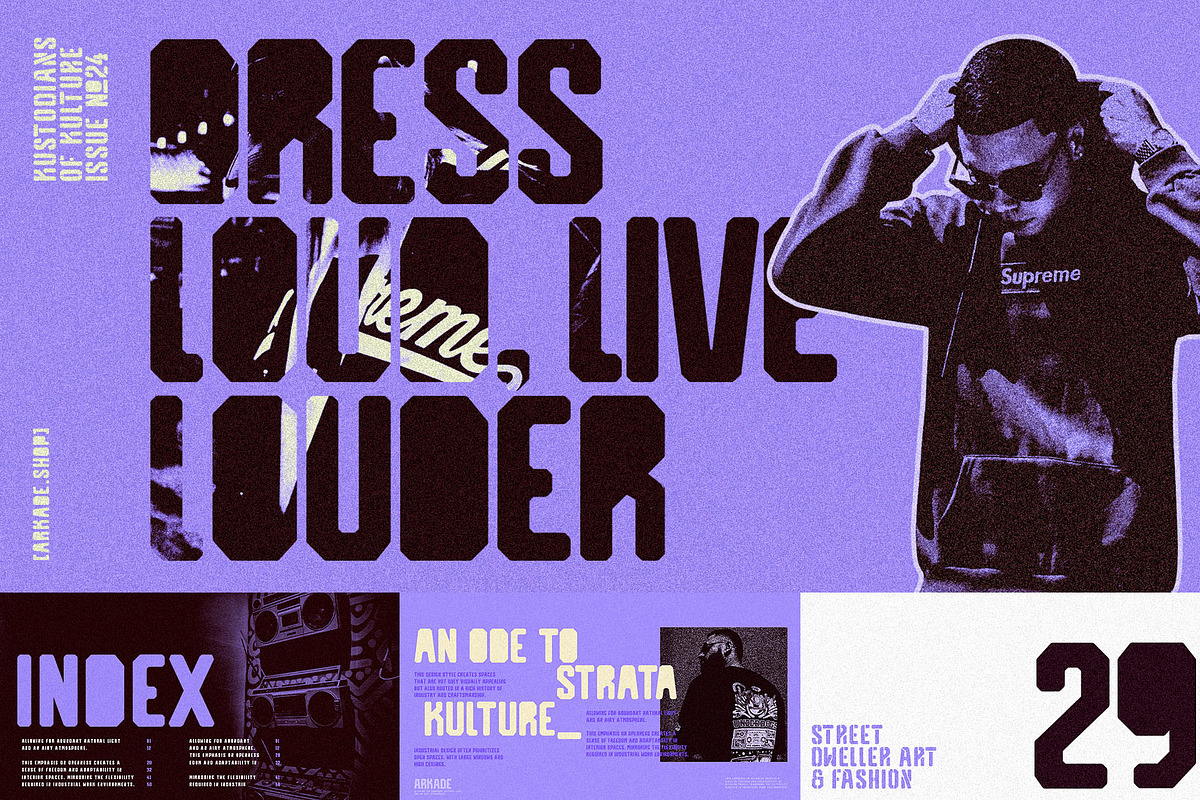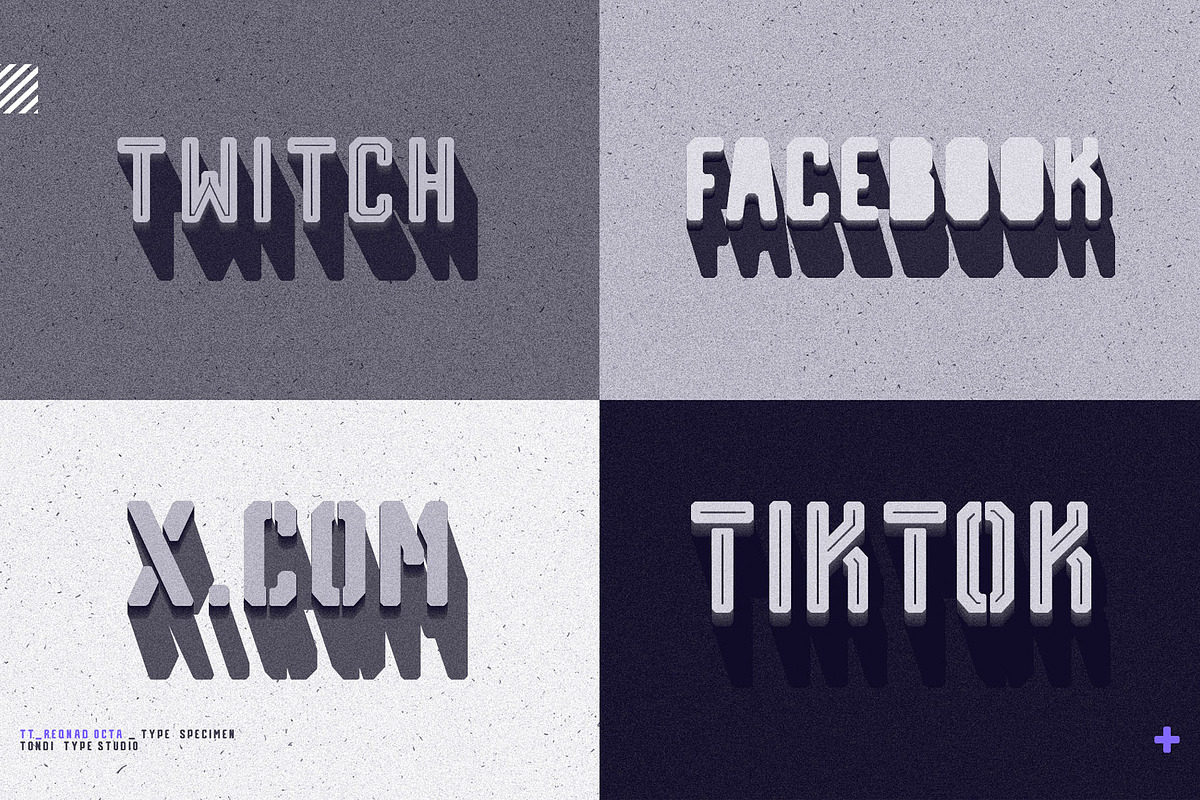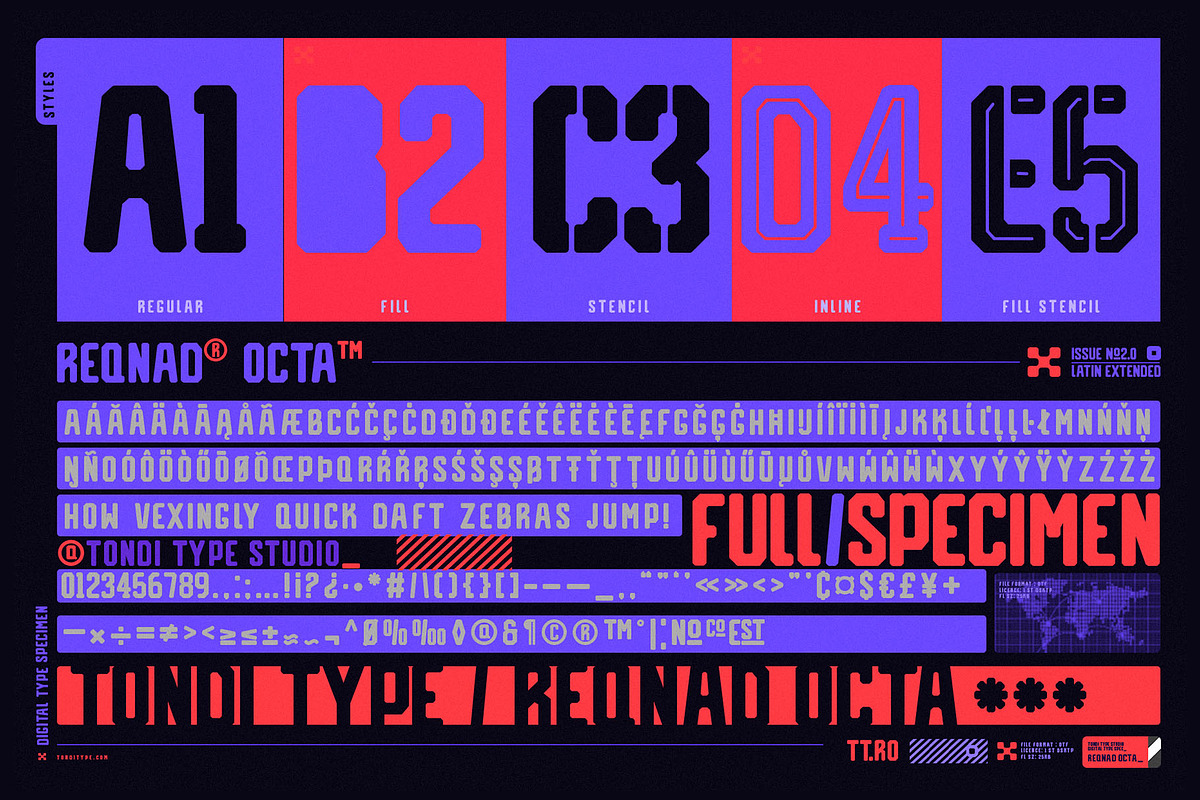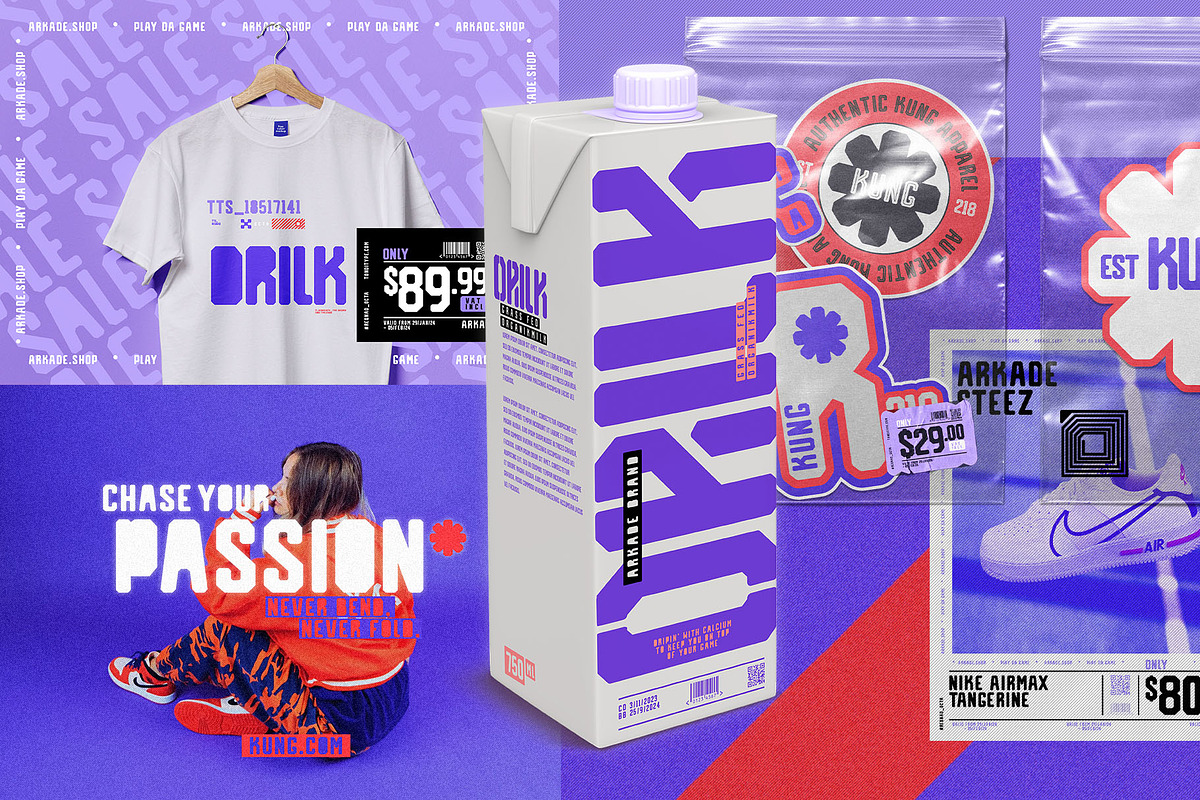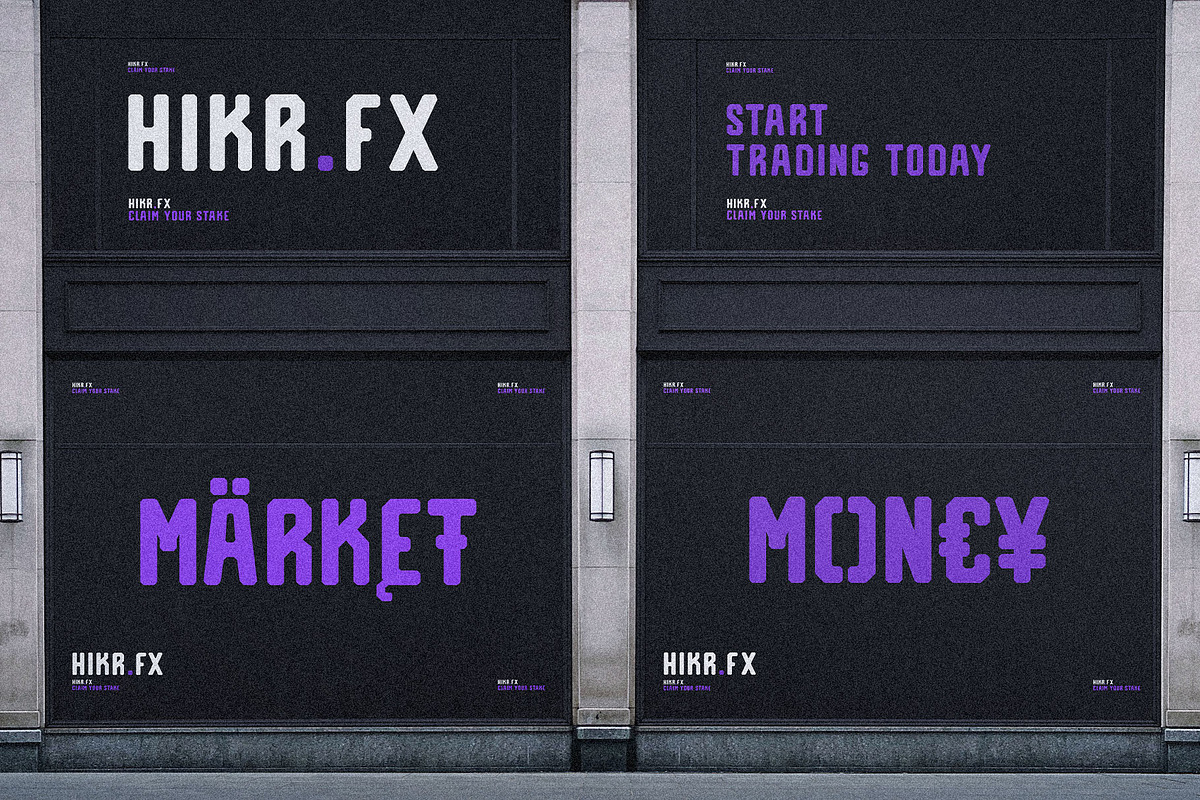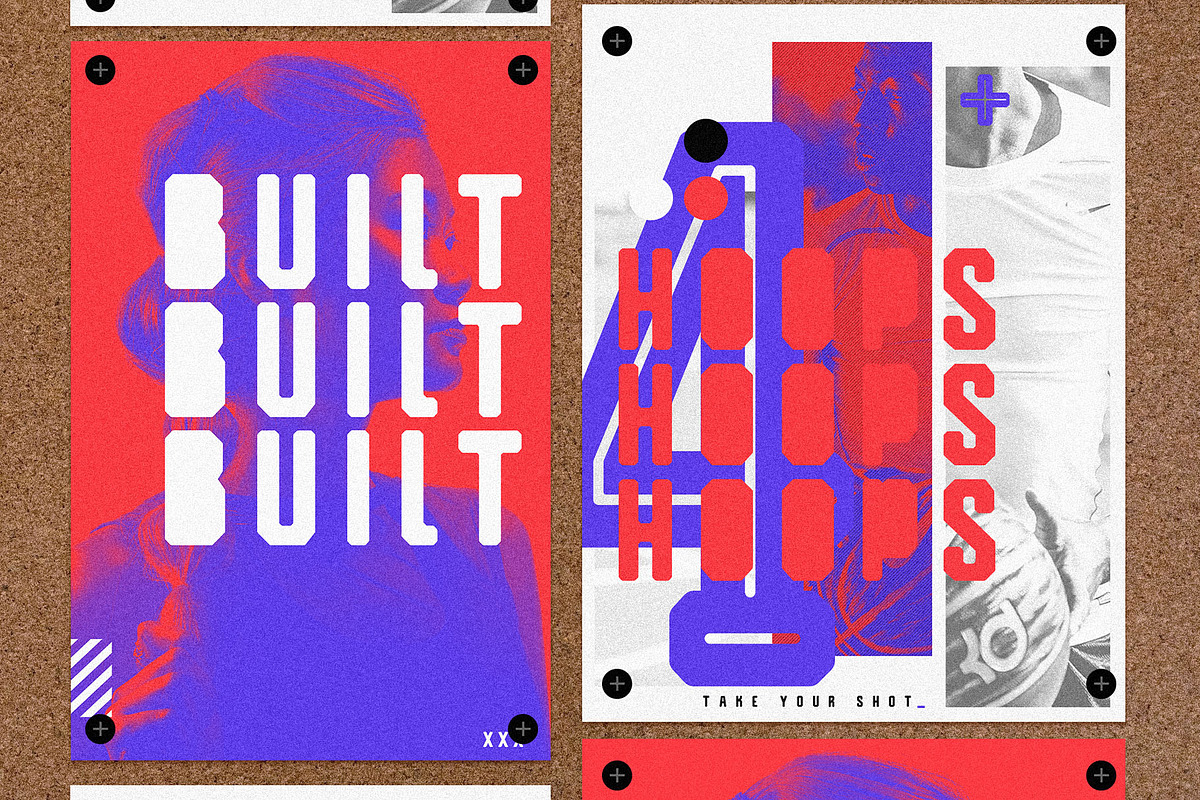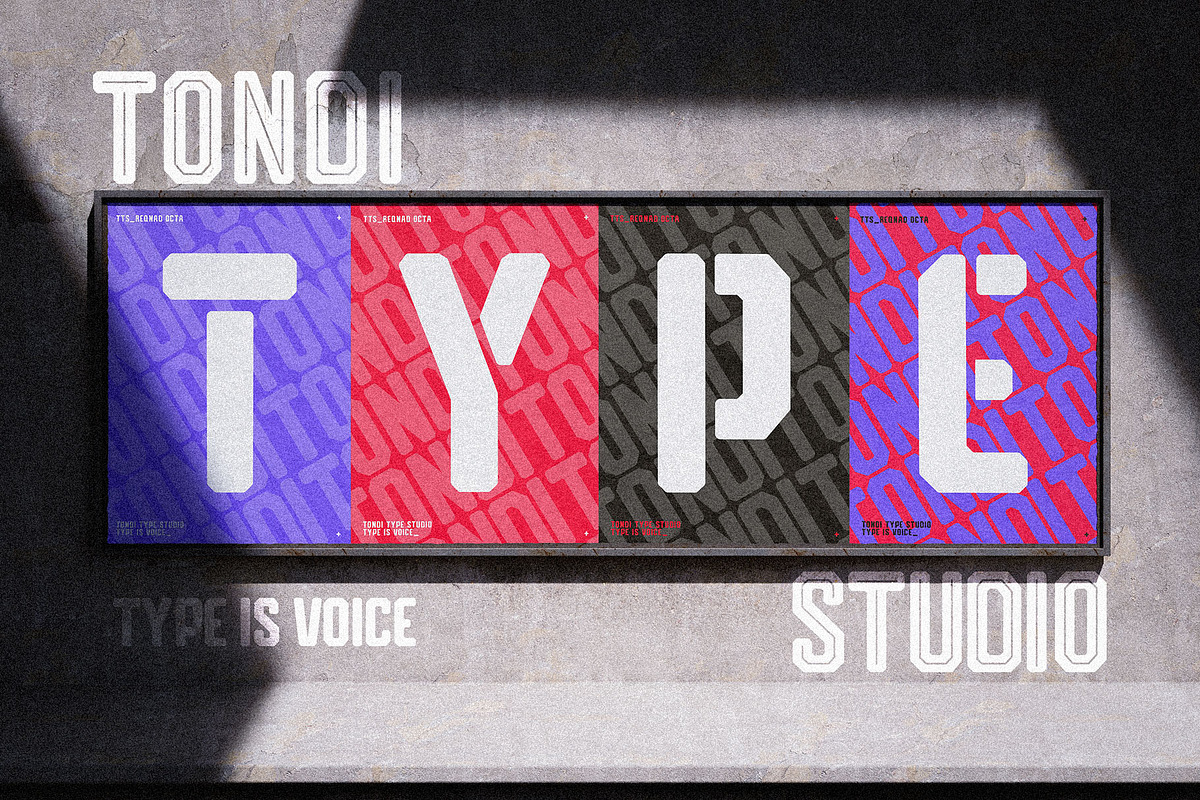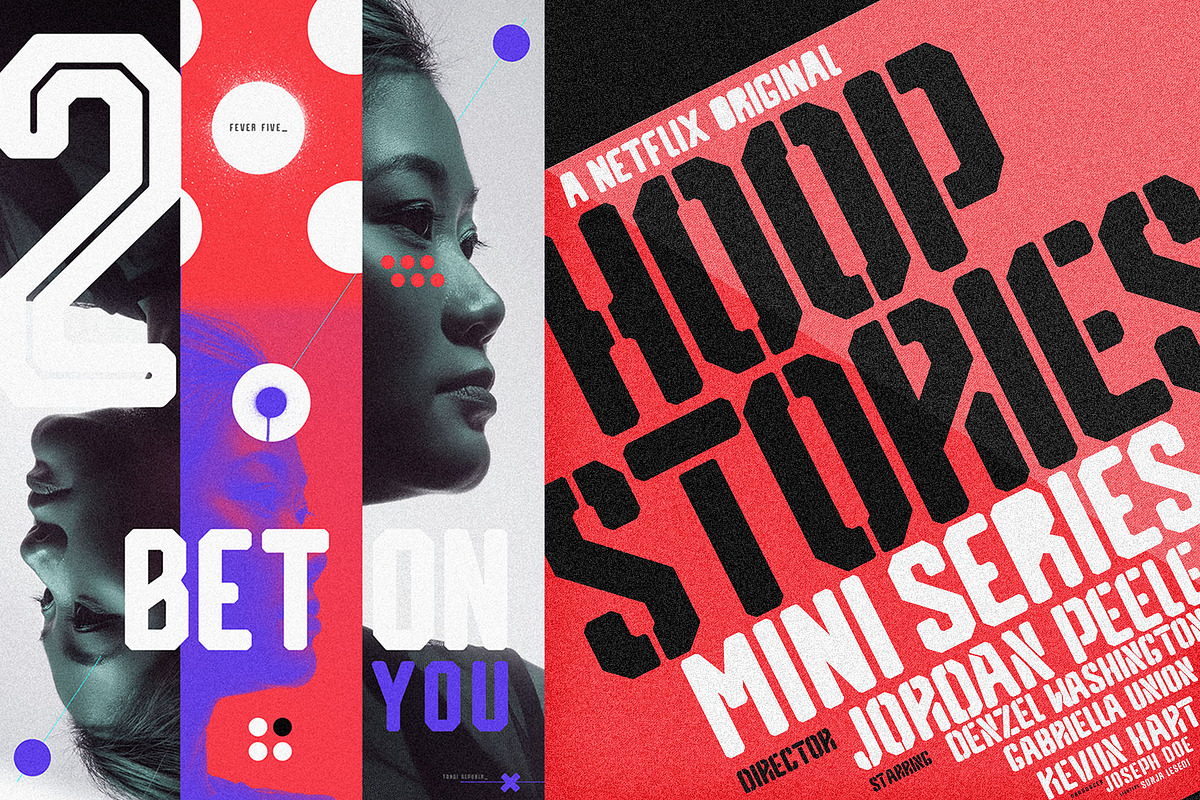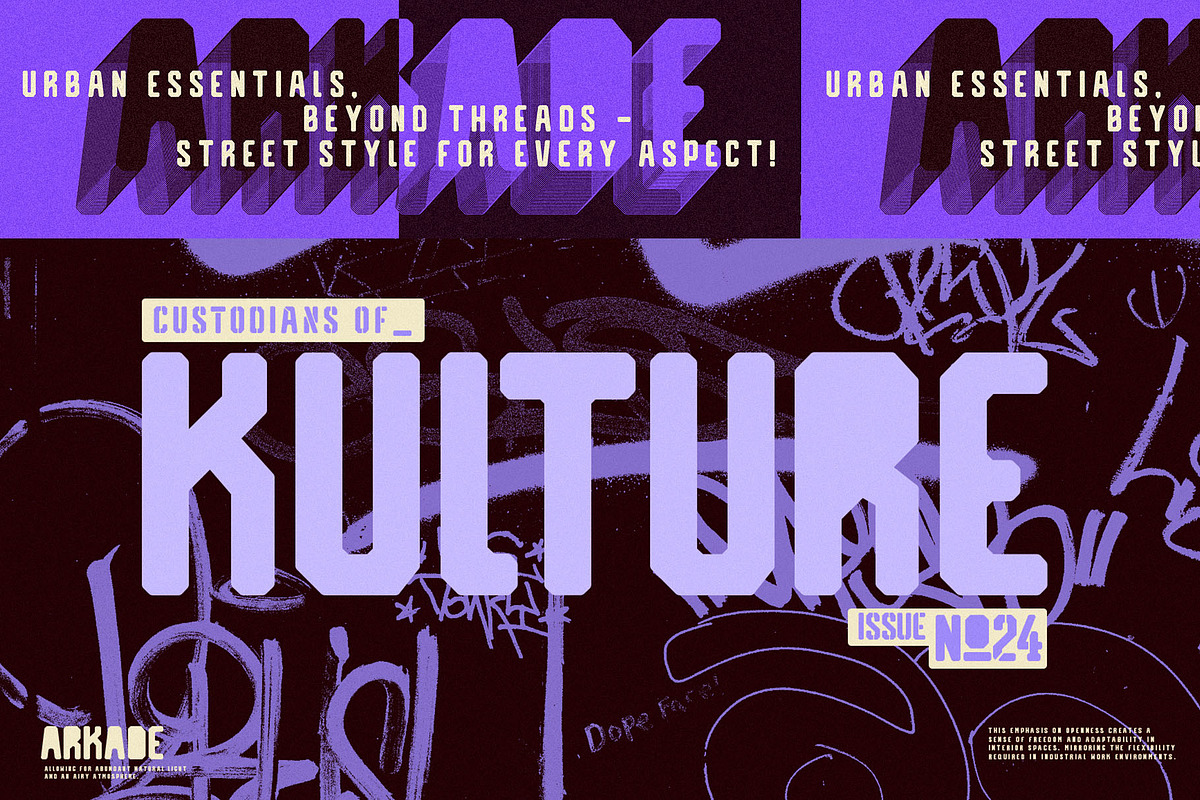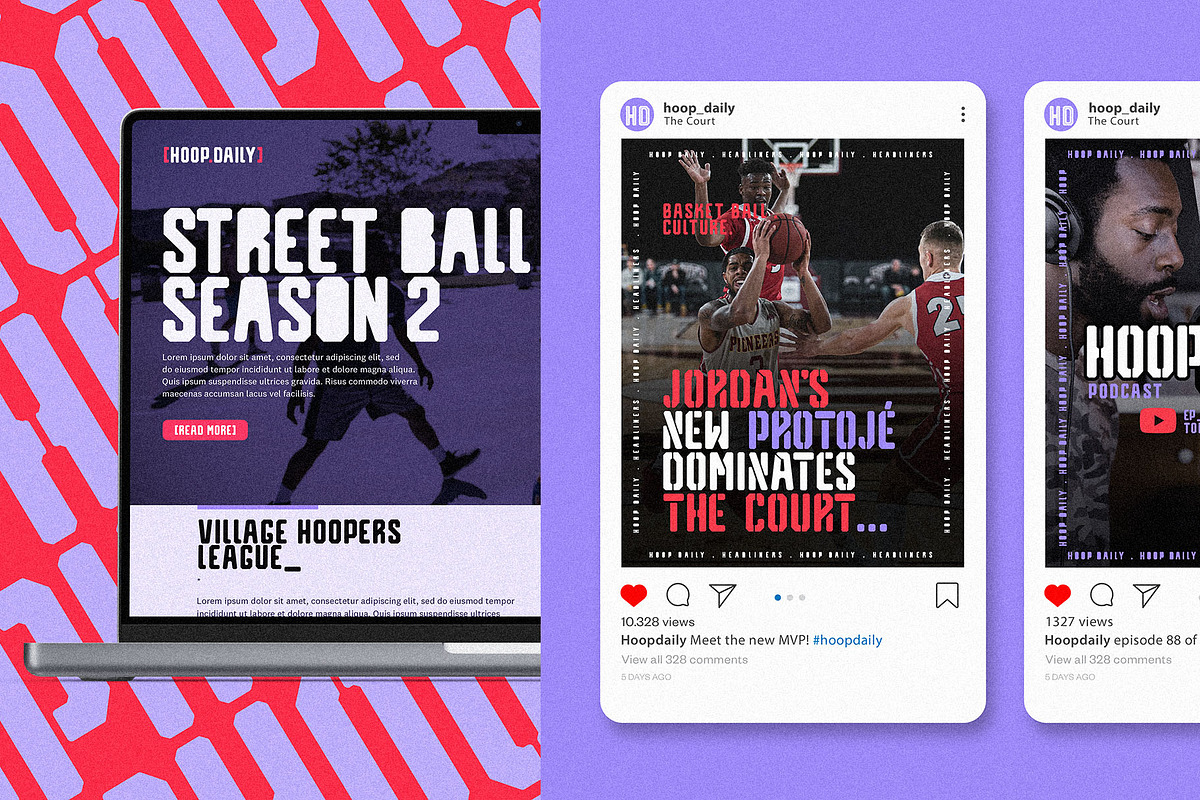
Reqnad Octa | Industrial Sans Serif
Discover Reqnad Octa, a cutting-edge display sans serif typeface designed with an industrial flair. Featuring a geometric aesthetic, rounded finishes, and unique octagonal angles, Reqnad Octa stands out in any design project. This versatile font family includes five distinct styles, with a free sample style available for you to try.
Included Styles in the Reqnad Octa Font Family:
- Fill
- Stencil
- Inline
- Inline Stencil
Ideal Uses for Reqnad Octa: Reqnad Octa is perfect for a wide range of applications, including but not limited to:
- Sports
- Headlines
- Packaging
- Editorial
- Apparel
- Outdoor Design